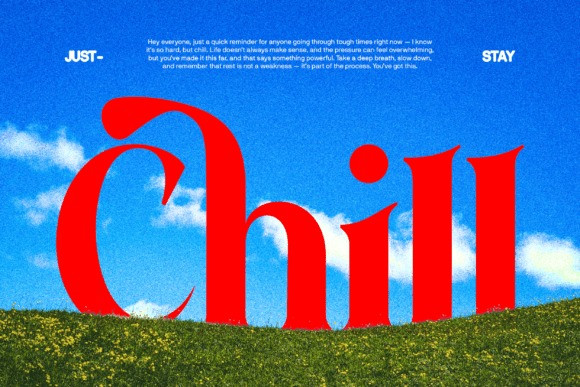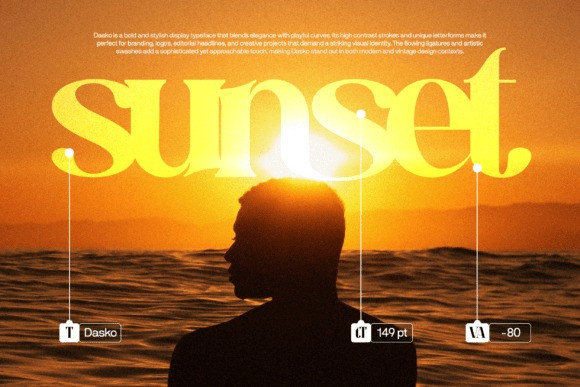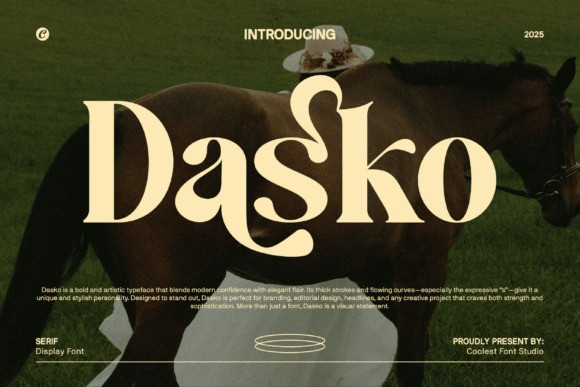
Dasko Font
Dasko Font is a stylish and expressive display font that blends modern aesthetics with classic serif charm. With its high-contrast strokes, flowing curves, and unique letterforms especially the iconic “s” Dasko brings a bold personality to any design project.
This cool and elegant font is ideal for creatives who want their work to look refined, artistic, and visually captivating. Whether you’re designing a logo for a fashion label or creating packaging for a premium product, Dasko adds a touch of luxury and flair.
With full multilingual support, ligatures, alternates, and a complete set of characters, Dasko is not only beautiful but also functional for professional typography needs.